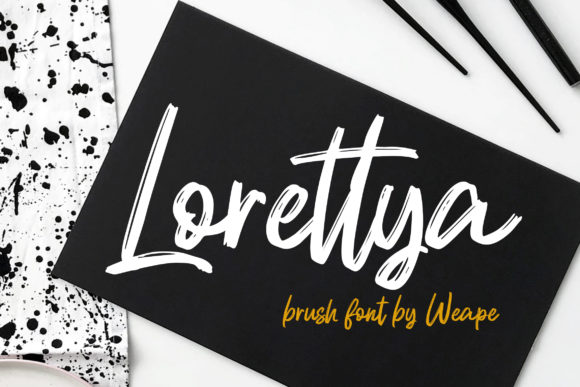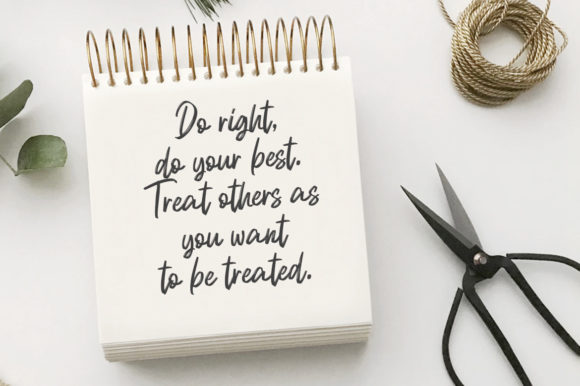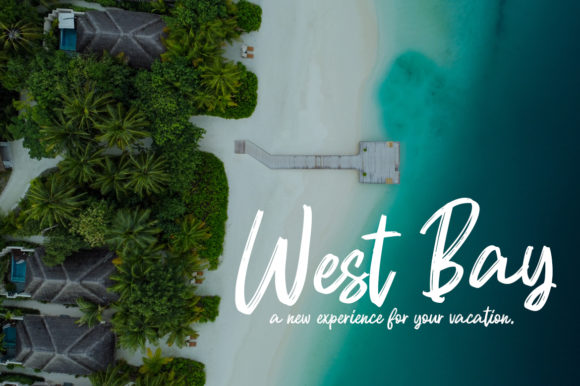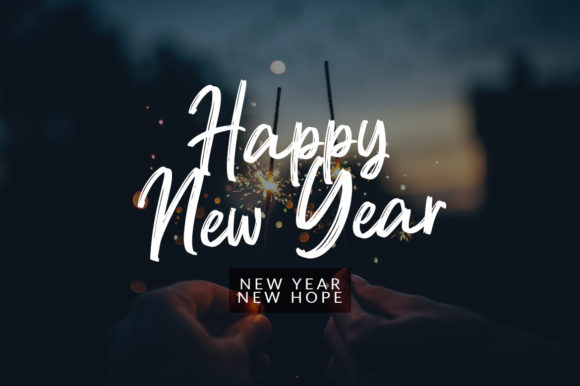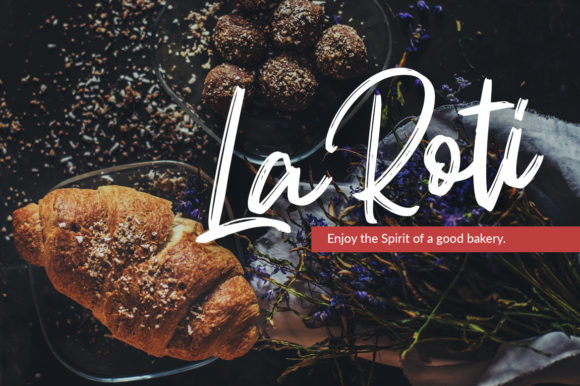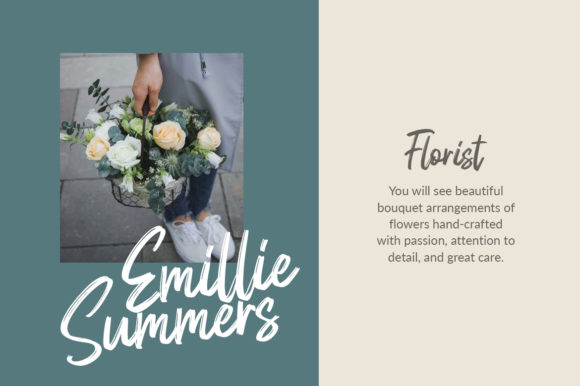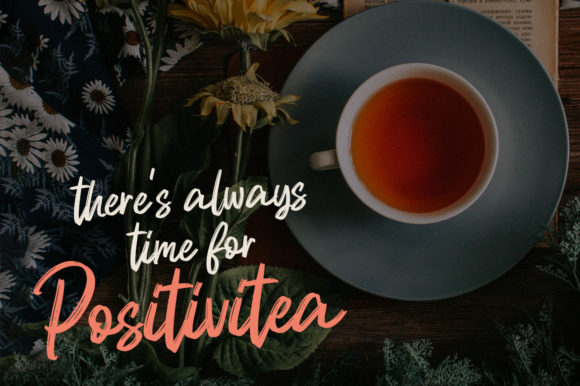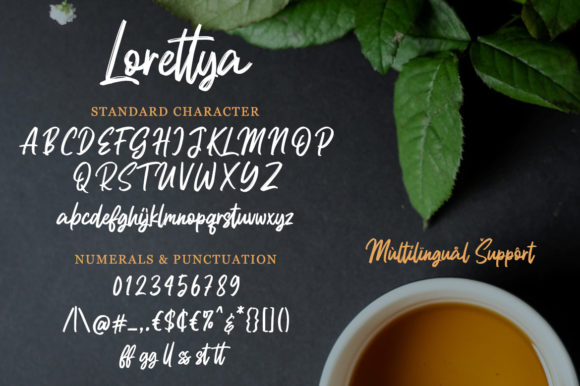
Lorettya Font
About Lorettya Font
Lorettya is a lovely script font with unique strokes that appear to be written by hand. Get inspired by its contemporary coolness!